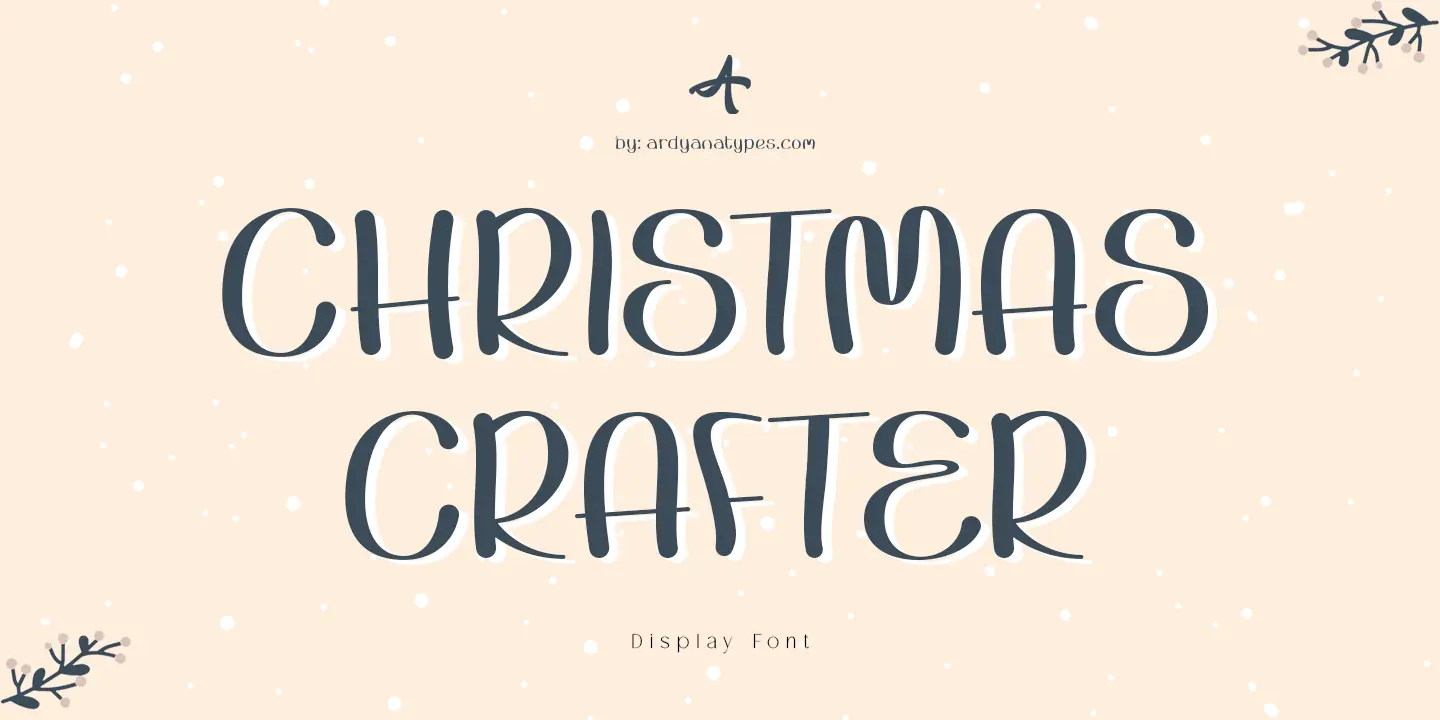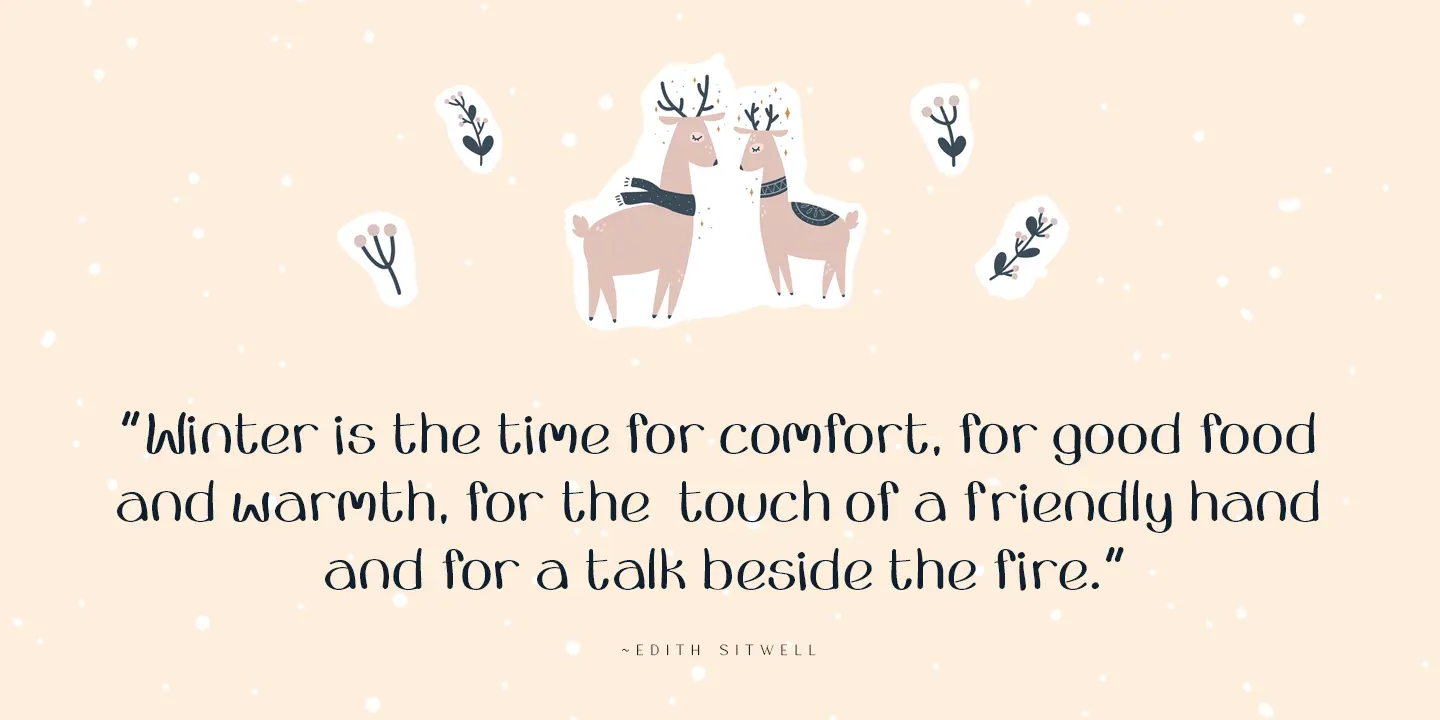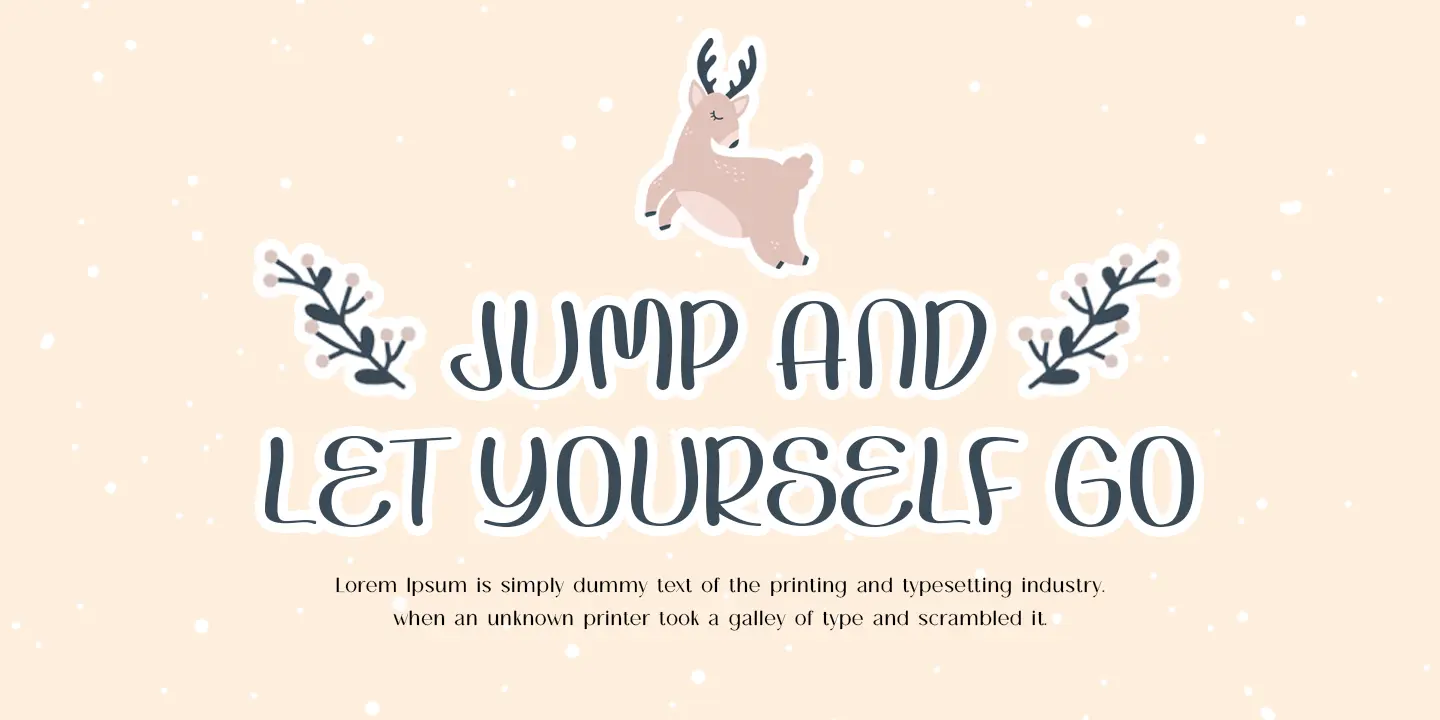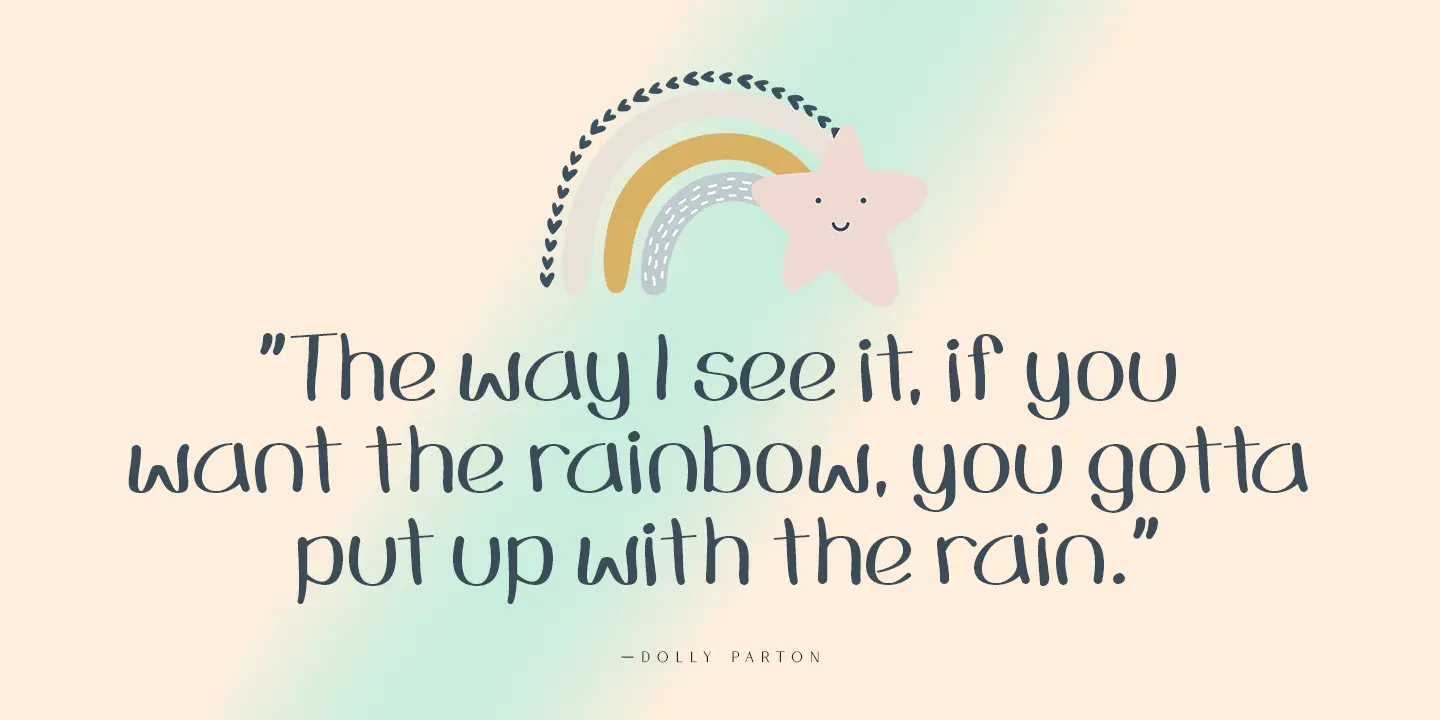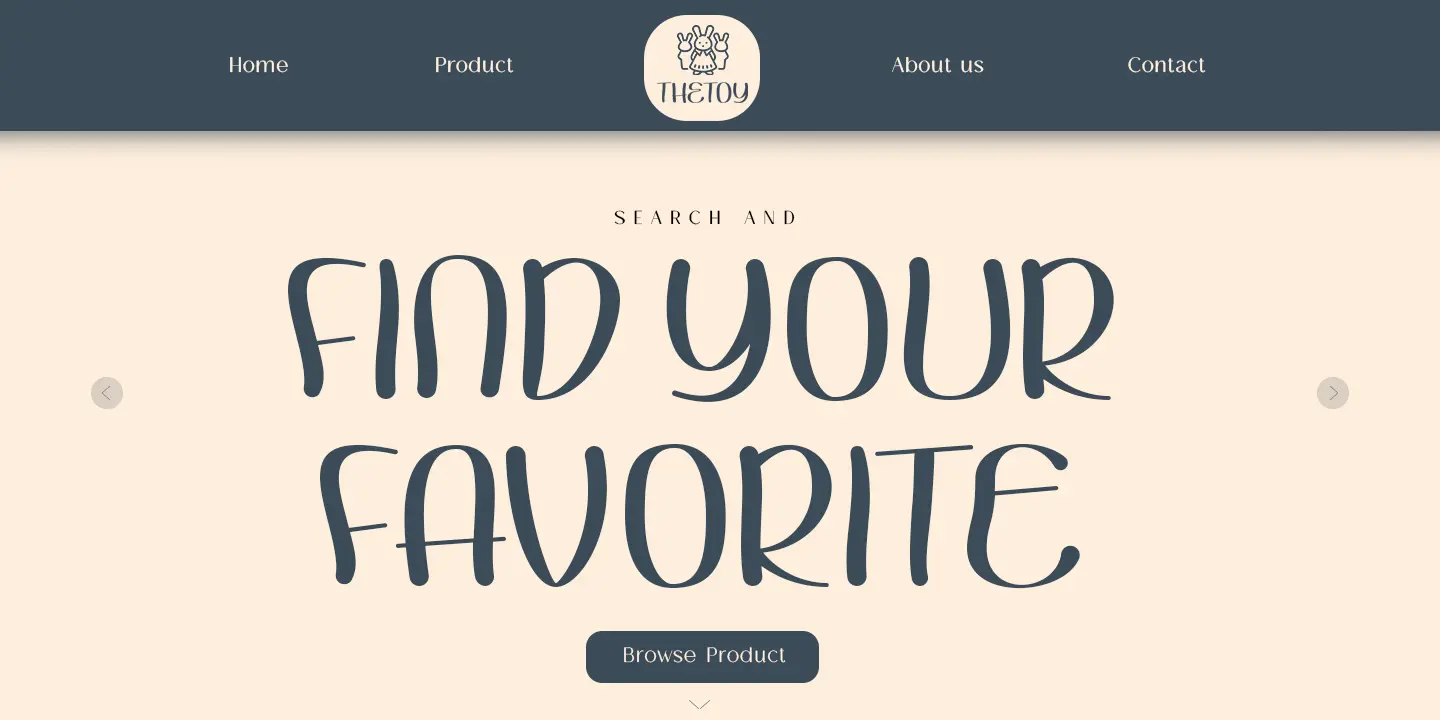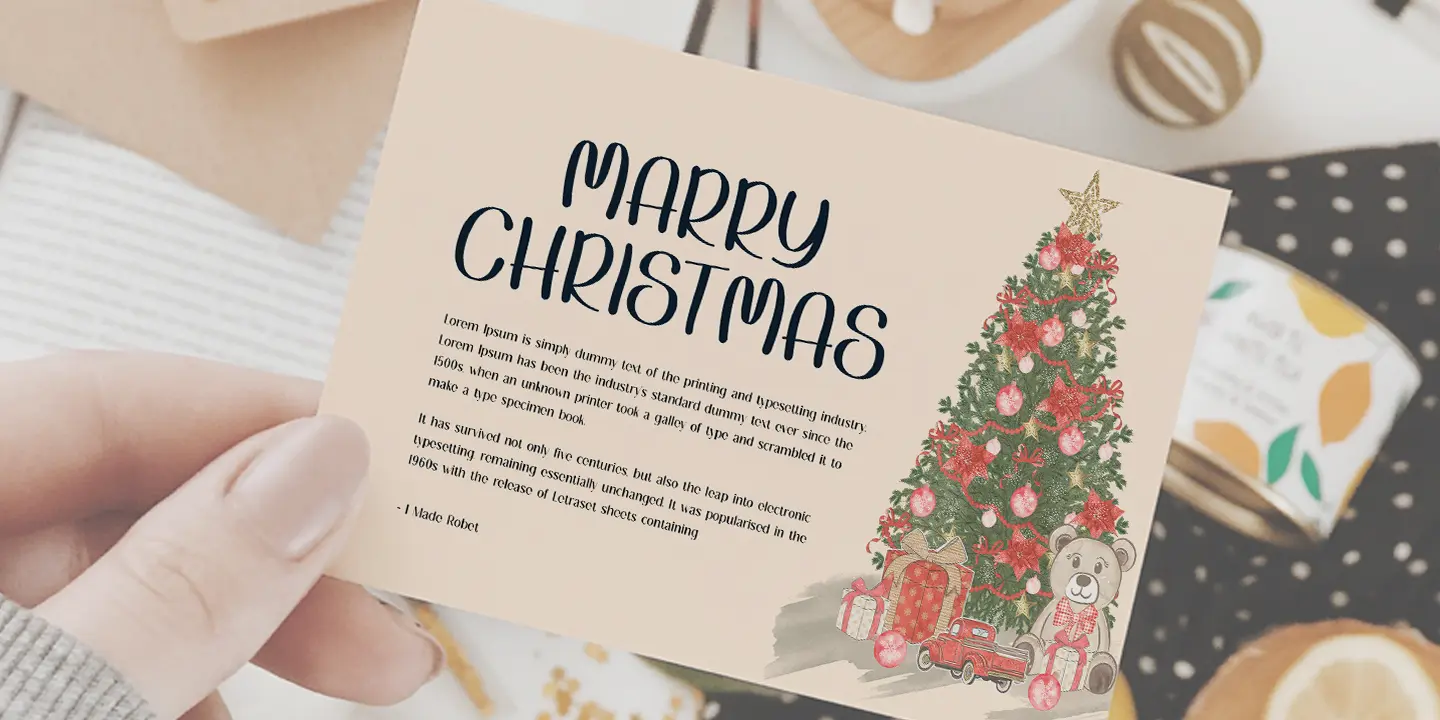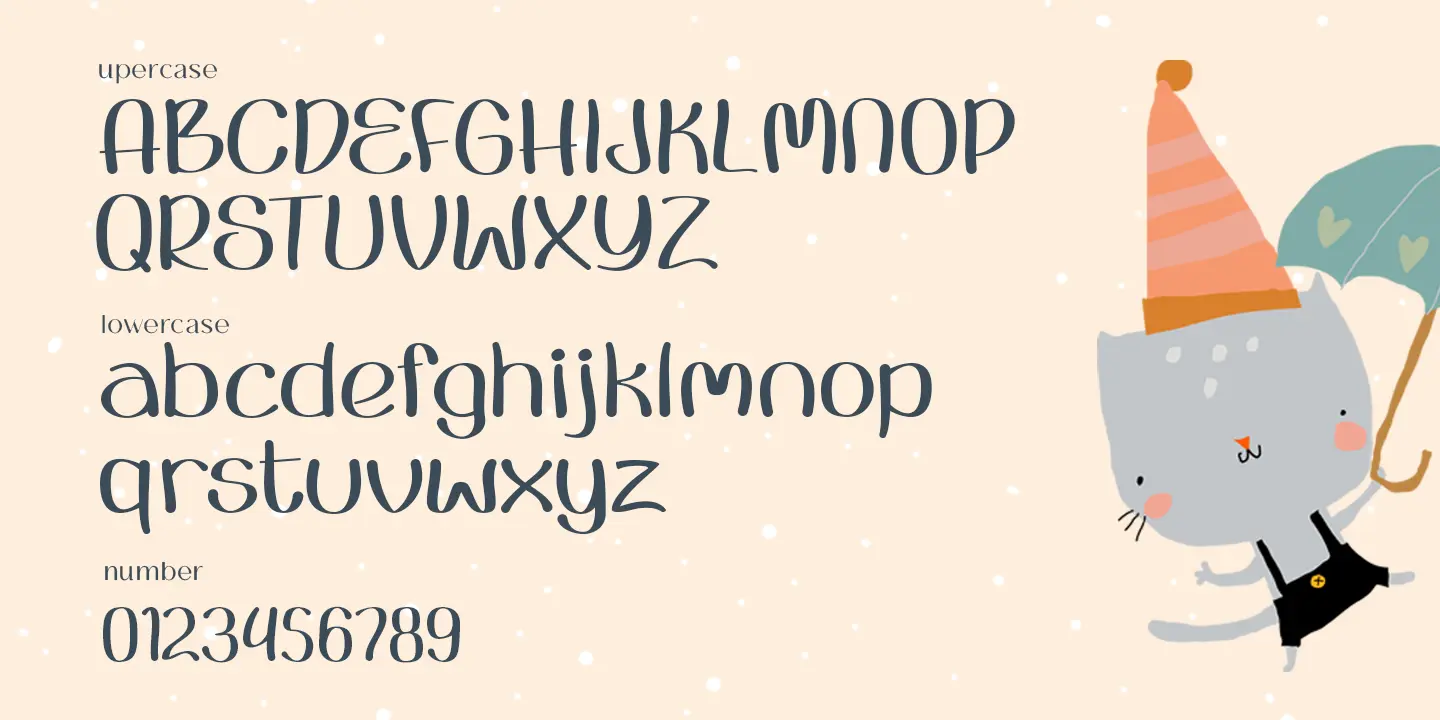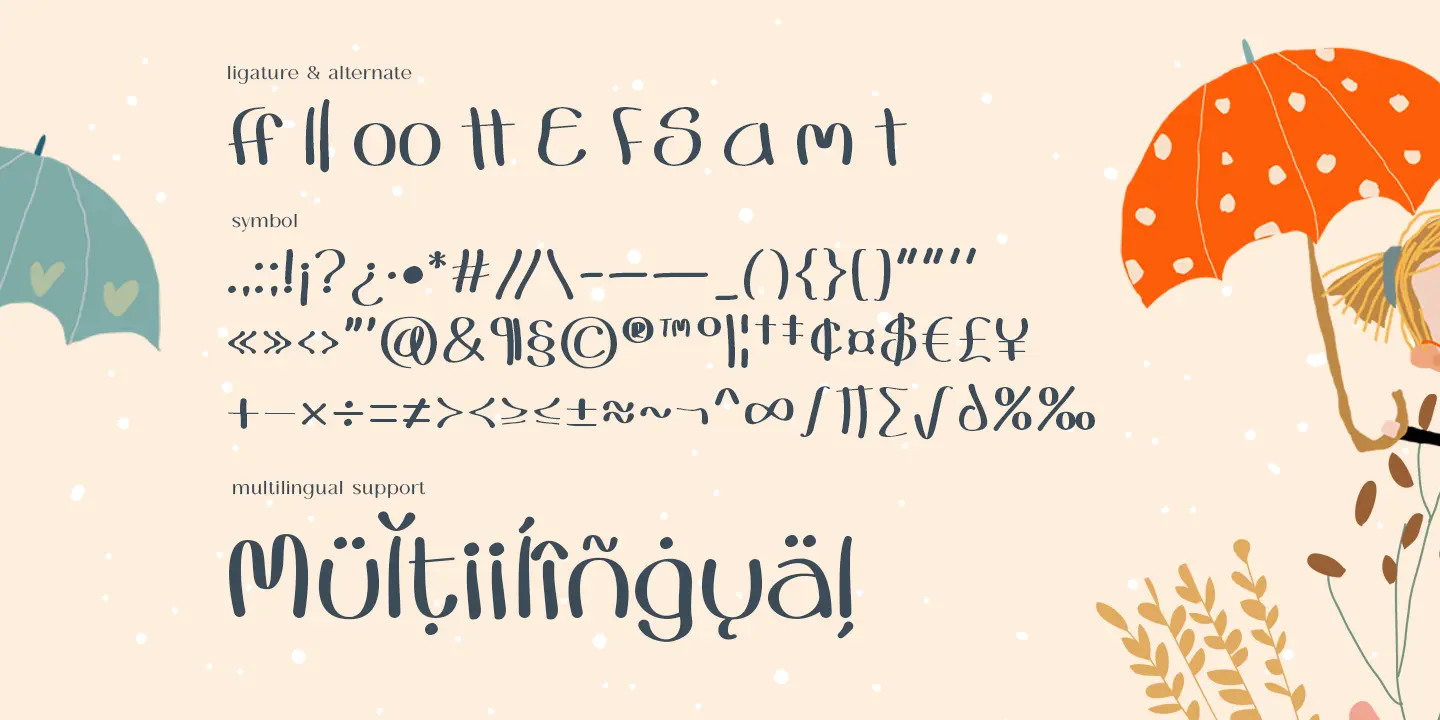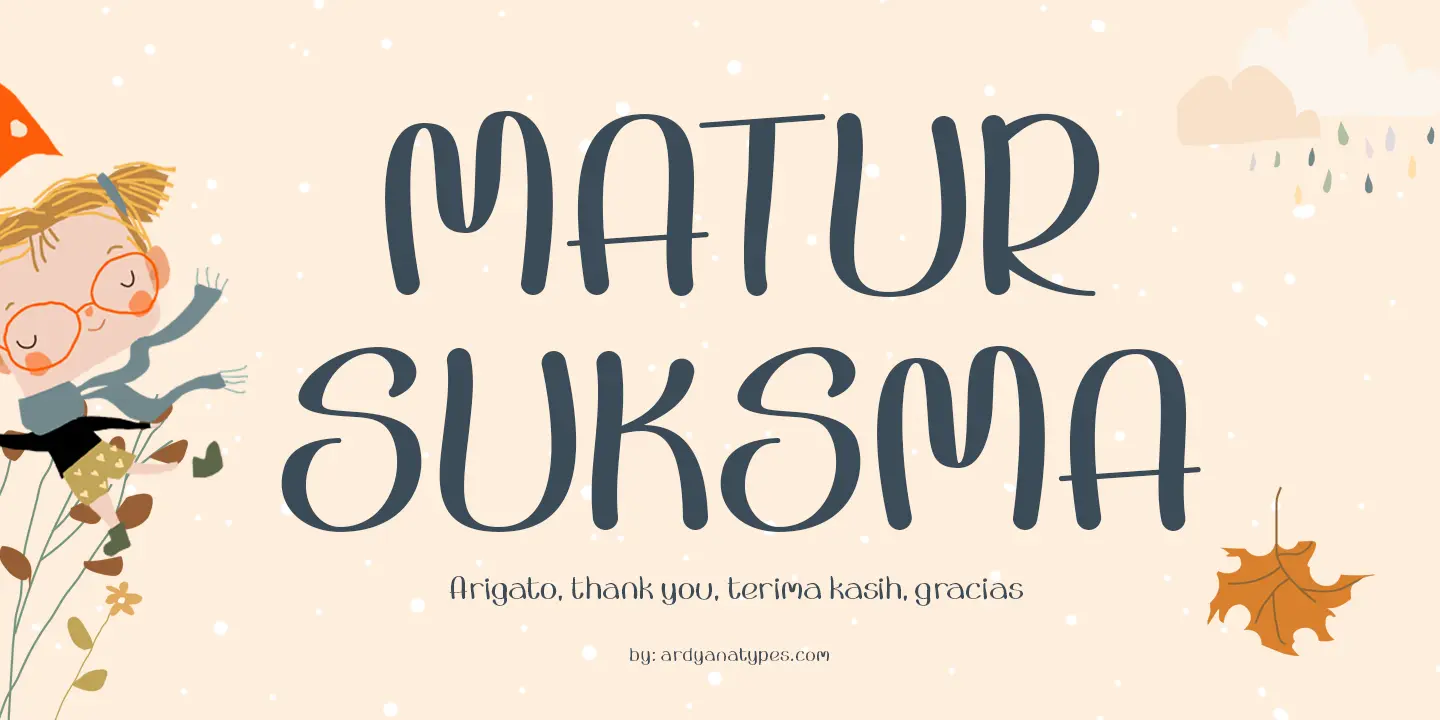
Christmas Crafter
Introducing Christmas Crafter, a very cheerful Christmas font with a unique shape. It has a very interesting impression to be used in any joyful project. Christmas Crafter is perfect for family greeting cards, posters, business cards, advertising branding, and many more that can be applied to your project using this Christmas Crafter typeface. Christmas Crafter also has alternative letters to beautify every word that is written and also has ligatures. This will add a positive impression to each of your projects. Christmas Crafter also supports all languages.